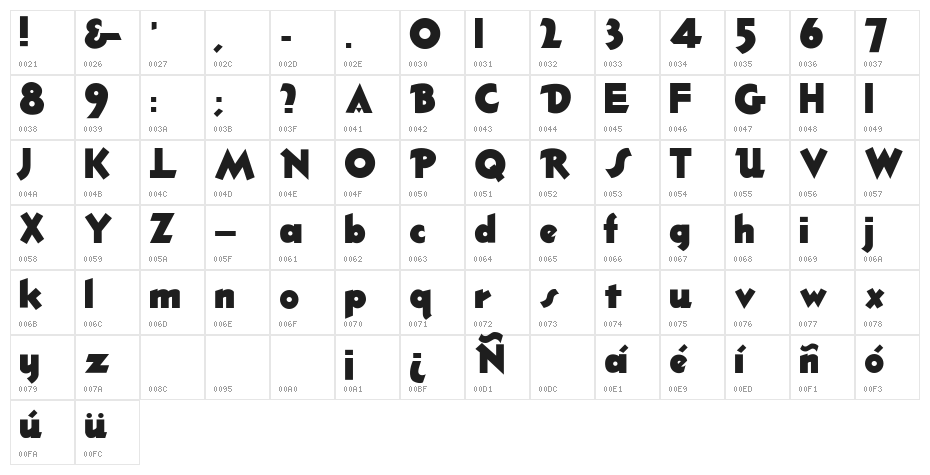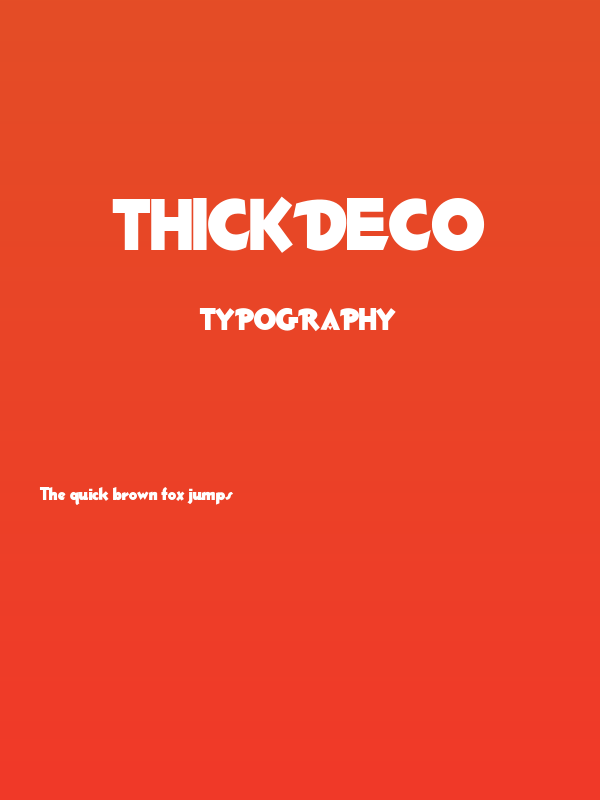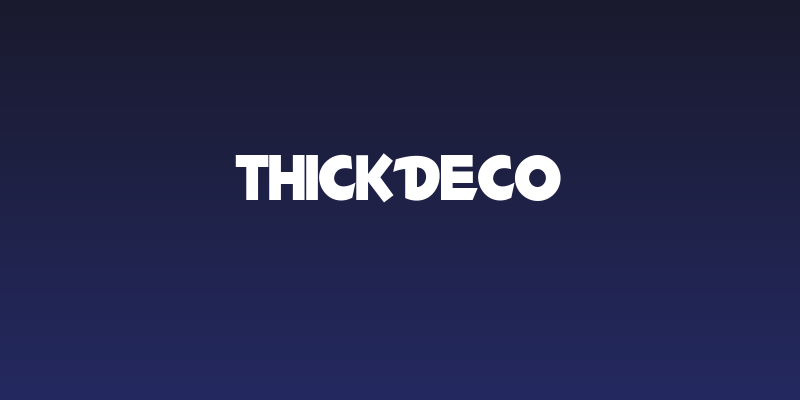
ThickDeco Font
ThickDeco Description
This font features bold, geometric shapes with a strong Art Deco influence. The characters are characterized by thick, uniform strokes and angular forms, giving it a distinct and eye-catching appearance. The uppercase letters are particularly striking, with sharp angles and a sense of movement. The lowercase letters maintain the boldness, with some unique curves and cuts that add to the overall aesthetic. The numbers and special characters follow the same bold and geometric style, ensuring consistency across all glyphs. This font is ideal for making a statement and drawing attention.
| Overall Style | Art Deco, Modern |
| Proposed Projects | Ideal for posters, logos, branding, and any design project that requires a bold, attention-grabbing typeface. |